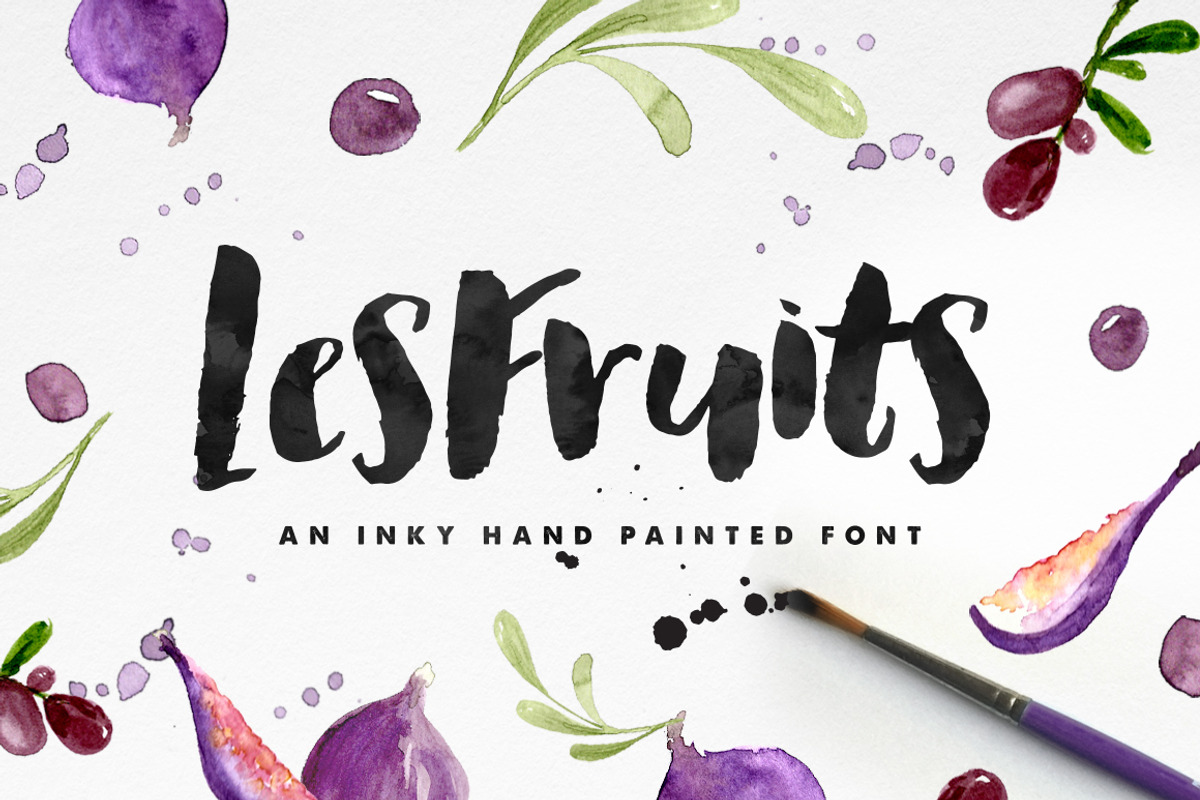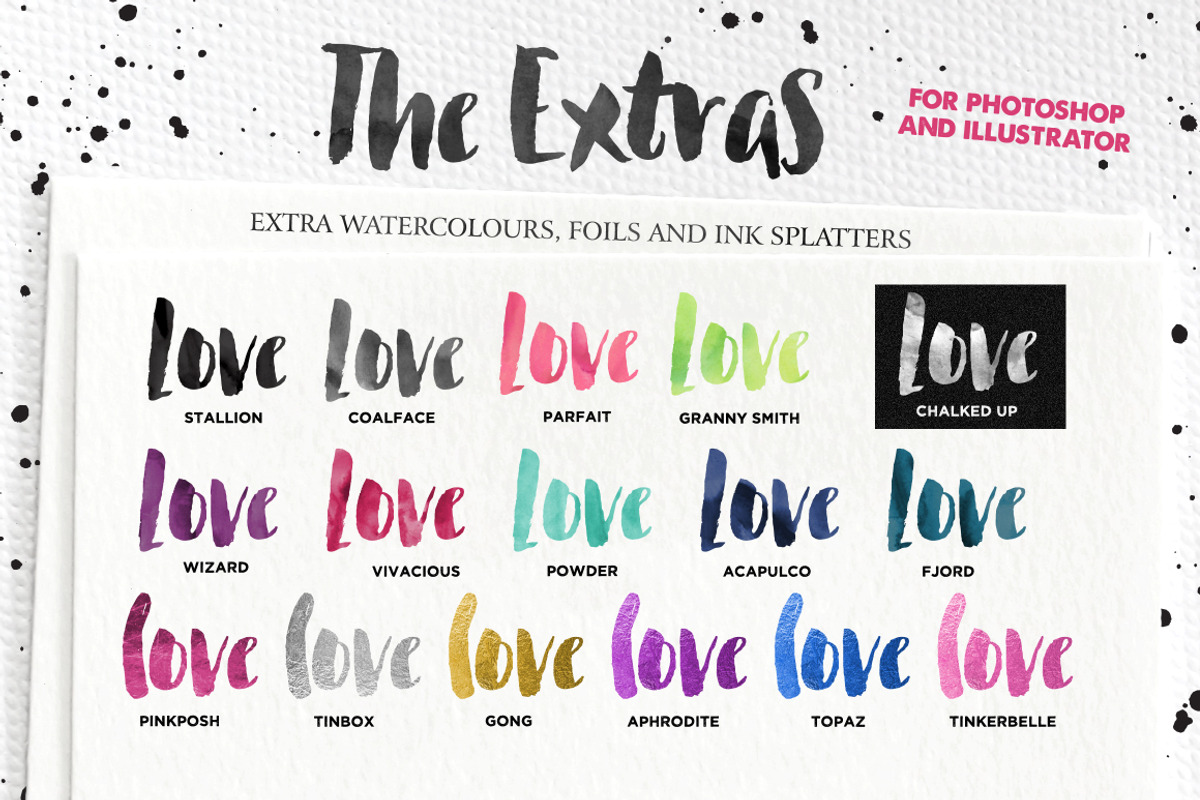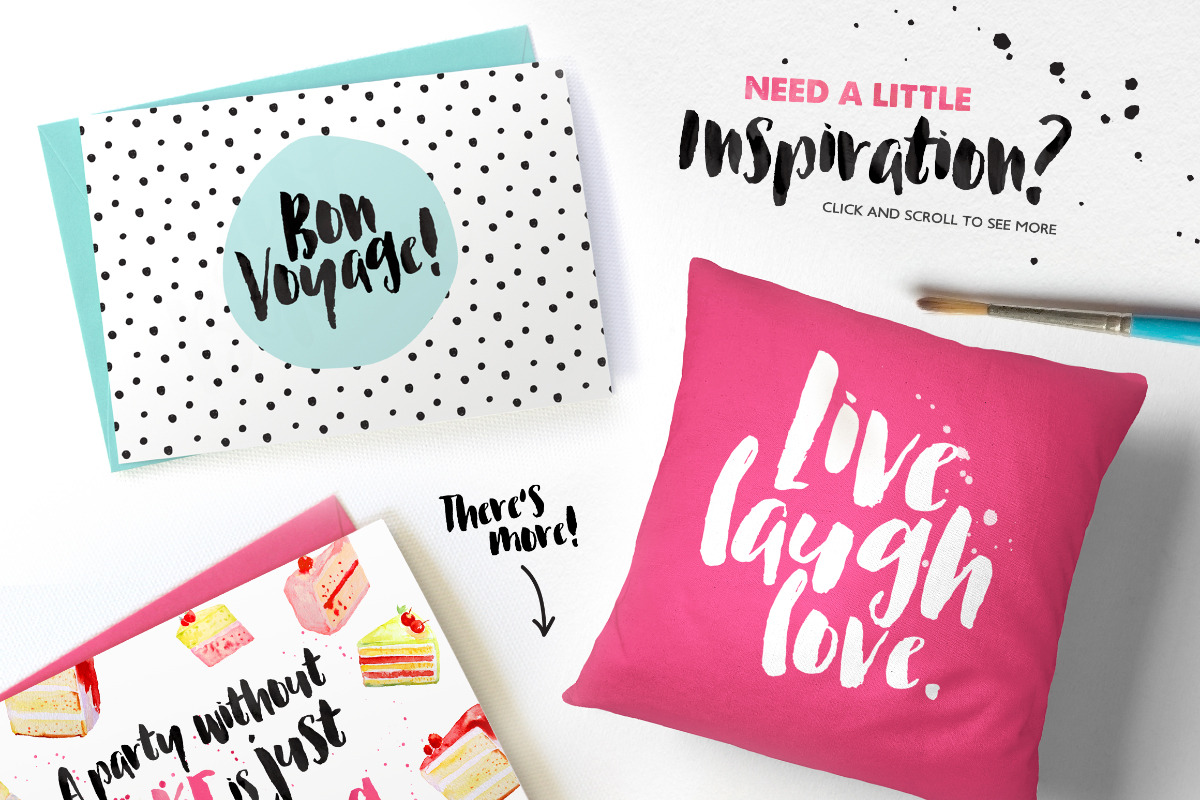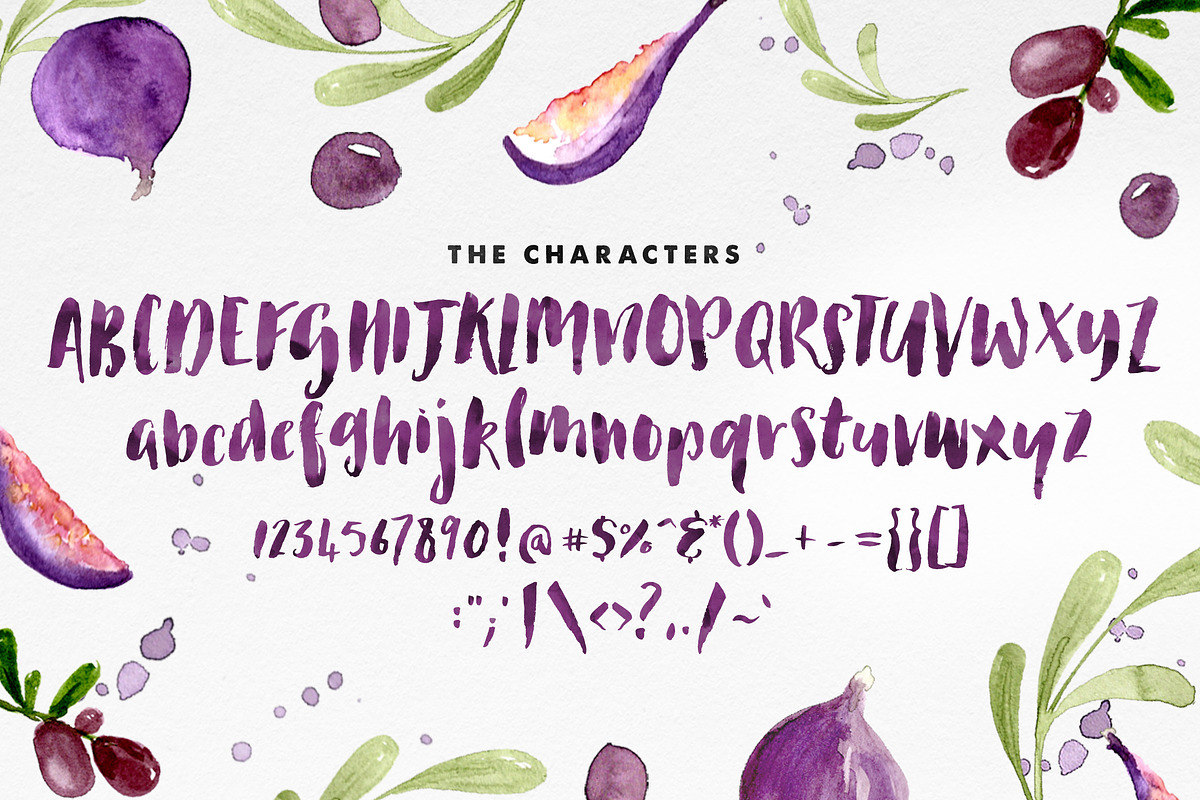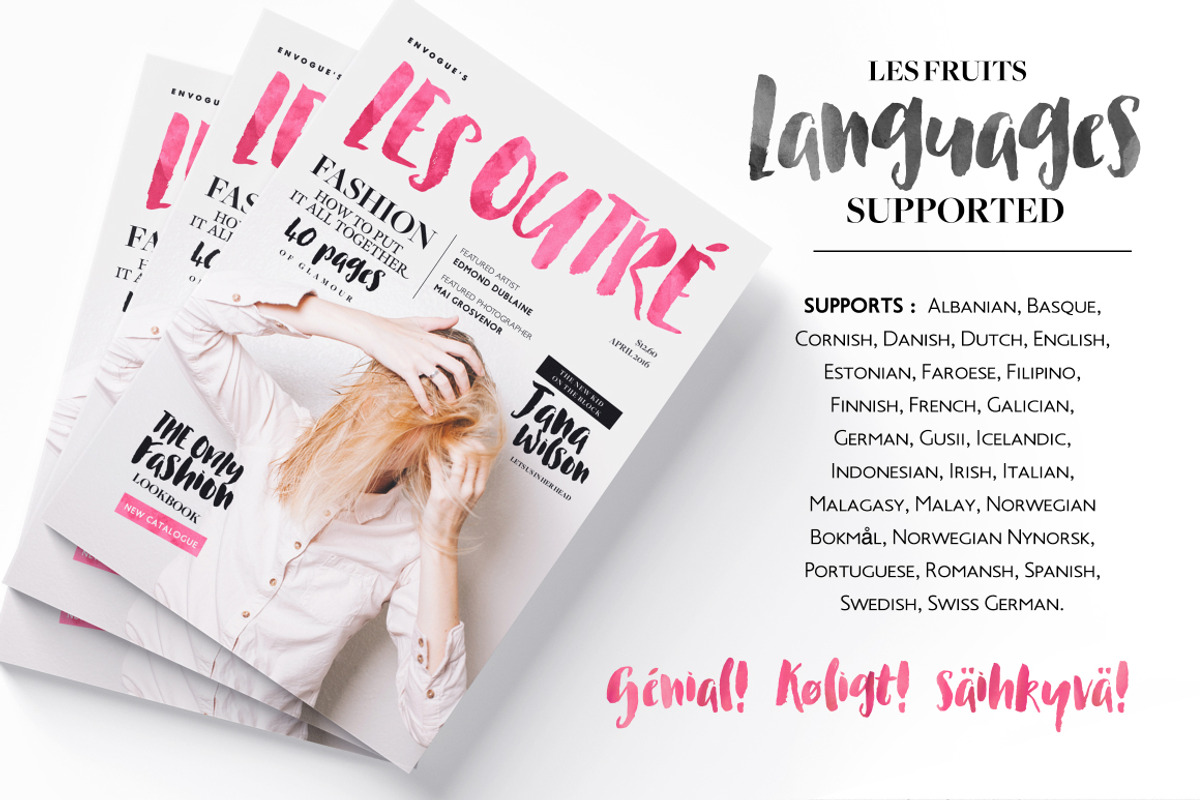
Les Fruits Brush Font
Introducing the brand new Les Fruits Brush Font! A casual, arty and inky, newly brush-lettered font with oodles of free extras to bring it to life!
Perfect for : using in ink or watercolour based designs or on its own as bold hand-brushed lettering :) Use it for Branding, Logos, Greeting Cards, Stationery Design, Invitations, T-shirts, Apparel, Packaging designs, Poster, Typographic Design, and so much more!
THE FREE EXTRA GOODS! It includes 16 Brand-New (Not included in any other pack) Lovingly-crafted Photoshop Styles/Illustrator Swatches in Watercolours, Foils and Inks, to bring your typographic creations to life!